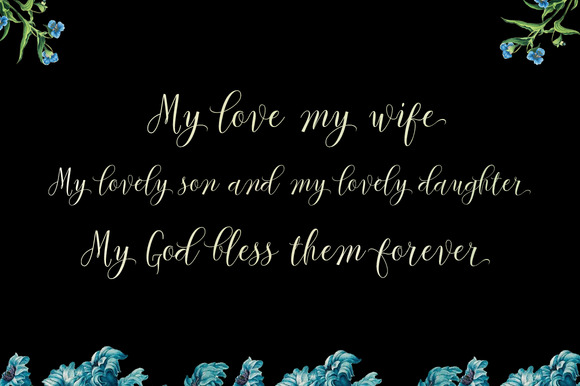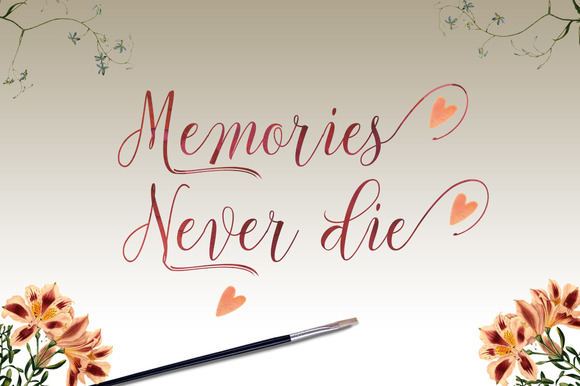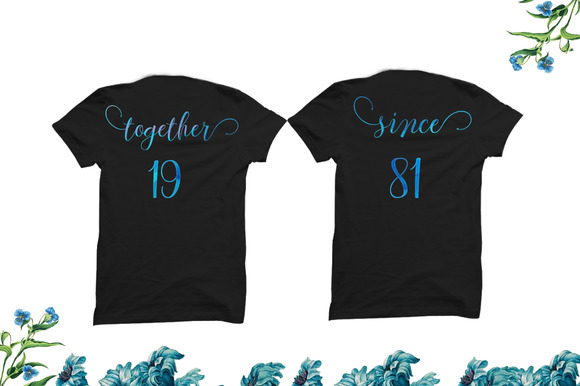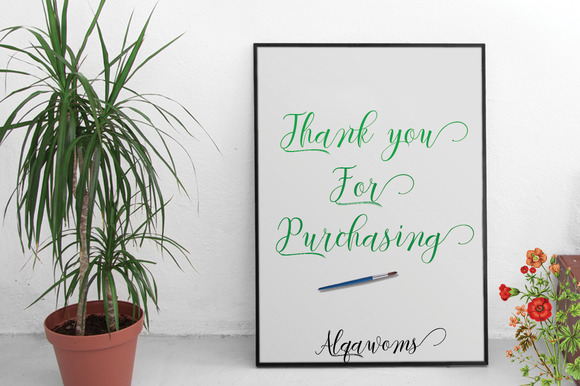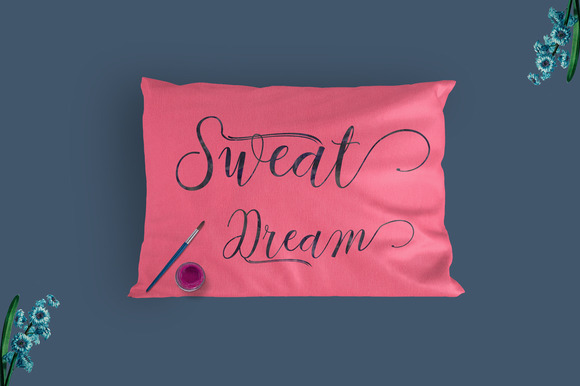
Better Font
About Better Font
Better is modern calligraphy typeface. This font will give your work a unique touch. It can be used for various purposes such as headings, logos, invitations, t-shirt designs, greeting cards, posters, labels, book covers, brochures, and much more!